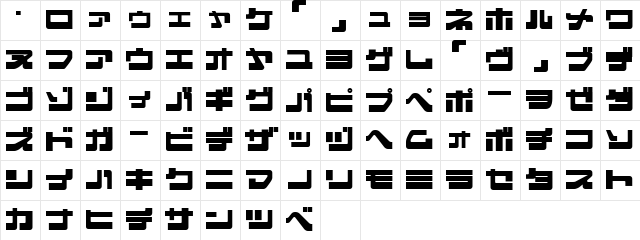
Complete EjectJap Remix glyph index. Displaying only characters natively supported by EjectJap Remix font.
EjectJap is a composed and adaptable typeface that performs quietly and consistently across a wide range of design contexts.